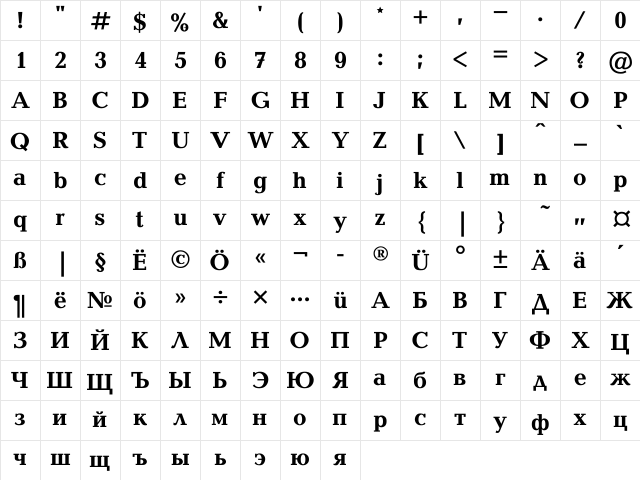
Baltica Bold
Baltica Family
Design Context for Baltica
Baltica is a composed and adaptable typeface that performs quietly and consistently across a wide range of design contexts. Its bold stroke weight gives it real presence on the page.